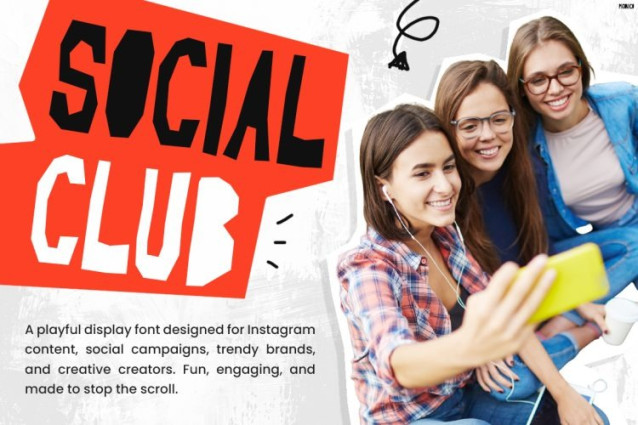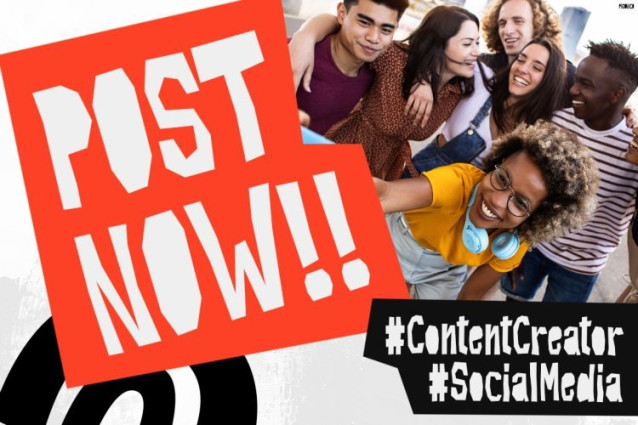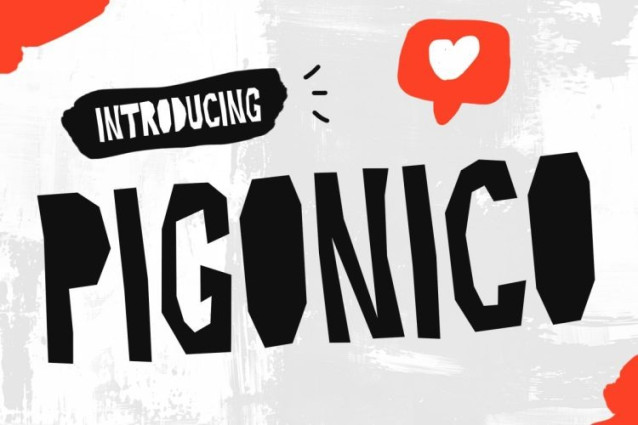
Pigonico Font
Pigonico Font is a powerful display font designed to capture attention in the fast-moving world of social media, digital content, and modern branding. Not only does it feature bold hand-drawn letterforms, but it also combines irregular shapes and expressive strokes that create an authentic and energetic personality. Moreover, its rough handcrafted aesthetic gives every headline a trendy and human touch. In addition, the strong visual style makes posts, thumbnails, and promotional graphics impossible to ignore. Furthermore, Pigonico maintains excellent readability while delivering a raw and creative appearance. As a result, your content becomes more engaging, memorable, and ready to stand out in crowded feeds. Meanwhile, its casual style brings a fresh creator vibe that perfectly matches today’s digital trends. Therefore, Pigonico is the ultimate choice for modern online creators and bold brands.Pigonico is created for projects that demand attention, personality, and viral potential. Whether you are designing Instagram posts, YouTube thumbnails, TikTok content, social media campaigns, lifestyle branding, creative advertisements, posters, or online promotions, this font brings a fearless and eye-catching attitude. Likewise, its handmade texture makes every design feel more personal and relatable. Furthermore, the playful imperfections add character and originality. Consequently, your visuals can create stronger connections with audiences. At the same time, its versatile style works perfectly across digital platforms and printed materials.